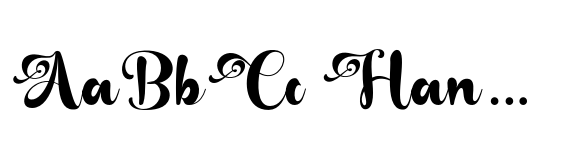
Ardelia
by TM Type
The Ardelia Font Family was designed by Teuku Bustami and published by TM Type. Ardelia contains 1 styles. More about this family
Introduce !
Ardelia is a beautiful handwritten font with a touch of love. Equipped with many glyphs Ardelia is perfect for branding projects, homeware design, product packaging, use in business cards, invitation cards, etc. Simply as a stylish text overlay on a background image or anything that needs an elegant touch.
Designers: Teuku Bustami
Foundry: TM Type